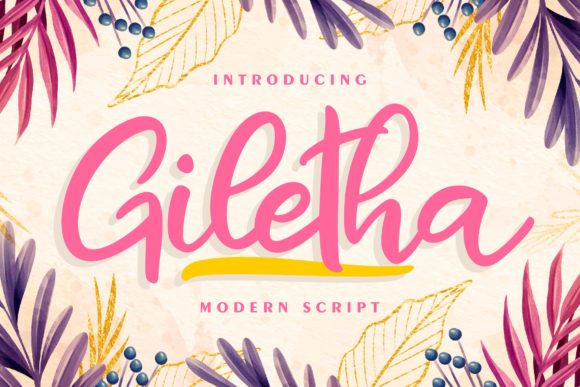
Behold, the Giletha Font – an enchanting voyage through a world of flowing strokes and refined elegance. This script font is a masterpiece, crafted to offer a unique symphony of style, sophistication, and visual charm. Giletha is not just a font; it's an invitation to embark on a creative adventure, where words dance off the page with grace and poise.
With its clean, thin, and smooth vibe, Giletha is a breath of fresh air in the world of typography. Its effortless flow and delicate curves create a captivating visual symphony that will leave you spellbound. Whether you're a passionate designer, a creative entrepreneur, or simply someone who appreciates the beauty of exceptional typography, Giletha is your perfect companion.
With Giletha at your fingertips, you'll discover a world of endless possibilities. Use it to craft breathtaking logos that exude elegance, design eye-catching posters that command attention, or create stunning product packaging that oozes luxury. Giletha is like a versatile chameleon, adapting effortlessly to any project you throw its way, adding a touch of magic and sophistication to everything it adorns.
But Giletha is more than just a pretty face. Its carefully crafted characters are designed to enhance readability and create a seamless reading experience. Whether you're creating a heartfelt letter to a loved one or writing a captivating story that transports readers to another world, Giletha's smooth flow and clear legibility will ensure your words shine.
Giletha is the perfect font for those who dare to dream big and leave a lasting impression. It's a font that ignites creativity, sparks imagination, and weaves a tapestry of visual delight. With Giletha, your designs will transcend the ordinary and take on a life of their own, captivating audiences and leaving them in awe.
So, dive into the world of Giletha, where words come alive with newfound beauty and elegance. Let your creativity soar to new heights as you explore the endless possibilities that this remarkable font has to offer. Giletha is waiting for you, ready to transform your designs into masterpieces. Don't miss out on this chance to elevate your work to breathtaking new levels. Download Giletha today and unleash the magic within.